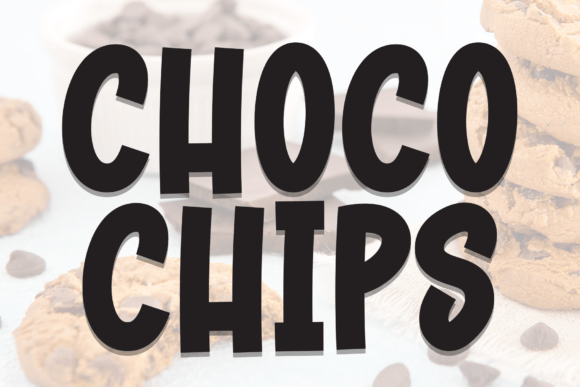
Introducing Choco Chips Font: The Sweetest Addition to Your Typography
Are you looking for a font that’s as sweet as it is stylish? Look no further than Choco Chips Font, a bold, chunky, and friendly handwritten font that’s perfect for adding a touch of fun and flavor to your designs. With its thick strokes and soft curves, Choco Chips is the ideal choice for packaging, bakery branding, food labels, and kids’ projects.
The Inspiration Behind Choco Chips Font
Choco Chips Font is a unique and eye-catching typeface that’s inspired by the whimsy and playfulness of childhood treats. The font’s creator aimed to capture the essence of sweet, indulgent foods like cookies, candies, and cakes, and bring that same sense of fun and excitement to the world of typography.
The result is a font that’s both bold and charming, with a friendly, approachable vibe that’s sure to delight audiences of all ages. Whether you’re designing a label for a bakery, creating a brand identity for a food company, or simply looking for a fun and playful font for a kids’ project, Choco Chips is the perfect choice.
The Characteristics of Choco Chips Font
So what makes Choco Chips Font so special? Here are just a few of its key characteristics:
- Bold and chunky: Choco Chips Font is a statement-maker, with thick strokes and a confident presence that’s sure to grab attention.
- Handwritten style: With its soft curves and playful flair, Choco Chips Font has a friendly, approachable vibe that’s perfect for brands and projects that want to feel approachable and relatable.
- Fun and playful: Choco Chips Font is all about having fun and embracing the sweet side of life. It’s the perfect choice for projects that want to convey a sense of joy and excitement.
Uses for Choco Chips Font
So what can you use Choco Chips Font for? The possibilities are endless, but here are a few ideas to get you started:
- Packaging: Choco Chips Font is perfect for packaging design, particularly for food and beverage companies that want to stand out on store shelves.
- Bakery branding: If you’re a bakery or food company looking for a brand identity that’s sweet and stylish, Choco Chips Font is a great choice.
- Food labels: From candy labels to food packaging, Choco Chips Font is a great choice for any project that needs a fun and playful touch.
- Kids’ projects: Choco Chips Font is a great choice for kids’ projects, including school assignments, crafts, and activities.
Tips for Using Choco Chips Font
Here are a few tips for getting the most out of Choco Chips Font:
- Use it sparingly: While Choco Chips Font is bold and eye-catching, it can also be overwhelming if overused. Try using it as an accent font to add a pop of personality to your design.
- Pair it with a neutral font: For body text and other smaller elements, try pairing Choco Chips Font with a neutral font that provides a clean and easy-to-read contrast.
- Experiment with colors: Choco Chips Font looks great in a variety of colors, from bright and bold to soft and pastel. Experiment with different hues to find the perfect fit for your project.
The Benefits of Using Choco Chips Font
So why choose Choco Chips Font for your next project? Here are just a few of the benefits:
- Unique and eye-catching: Choco Chips Font is a one-of-a-kind typeface that’s sure to grab attention and stand out from the crowd.
- Fun and playful: With its friendly, approachable vibe, Choco Chips Font is perfect for projects that want to convey a sense of joy and excitement.
- Versatile: Choco Chips Font can be used for a wide range of projects, from packaging and branding to kids’ projects and crafts.
In conclusion, Choco Chips Font is a sweet and stylish addition to any design project. With its bold, chunky strokes and friendly handwritten style, it’s the perfect choice for brands and projects that want to convey a sense of fun and playfulness. Whether you’re designing packaging, branding a bakery, or simply looking for a fun font for a kids’ project, Choco Chips Font is sure to delight.